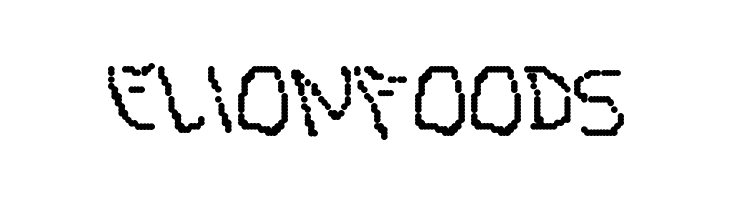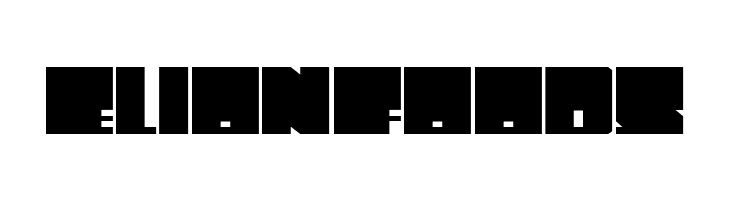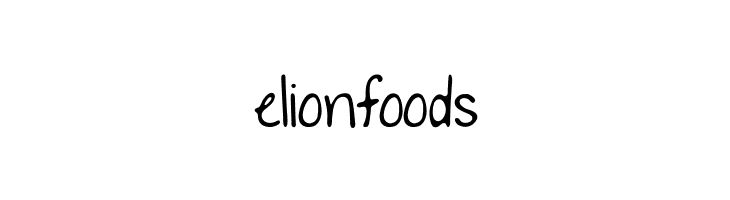
( Fonts by Eric Wohnig )
A casual, handwritten font with fluid, slightly irregular strokes.
( Fonts by Annette Brown )
A playful, hand-drawn font with elongated, irregular letterforms.
( Fonts by Wds )
A bold, blocky font with geometric shapes and strong visual impact.
A bold, shadowed font with a strong, geometric design.
( Fonts by Kait Mitchell )
A playful, handwritten font with bold, rounded strokes and a casual style.
( Fonts by Savana Price )
A playful, handwritten font with rounded, consistent letterforms.